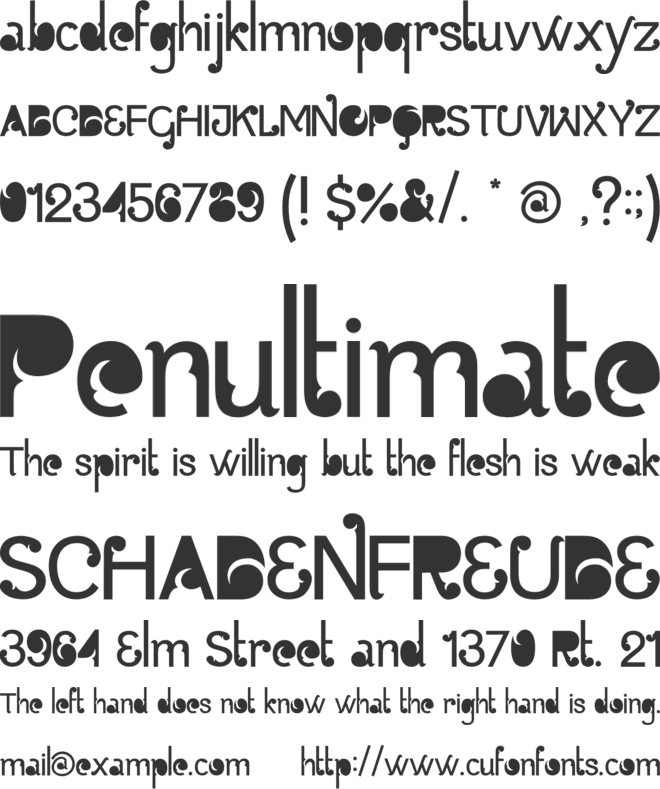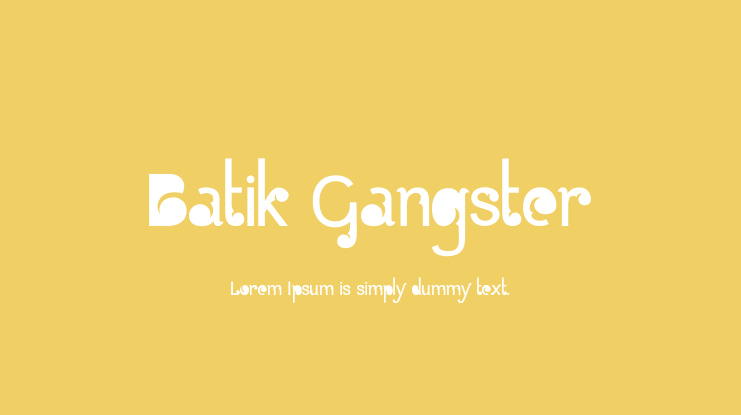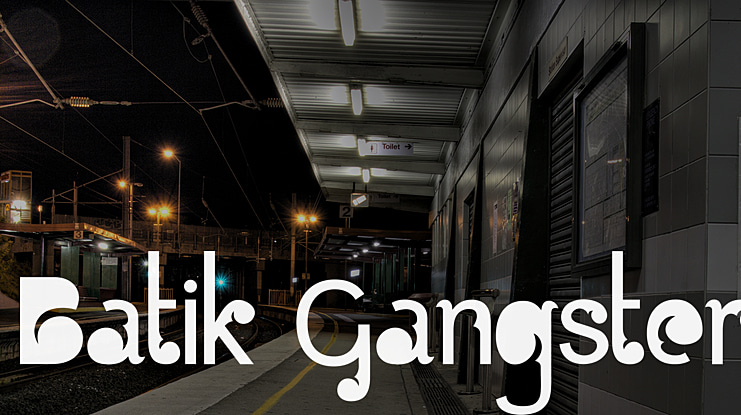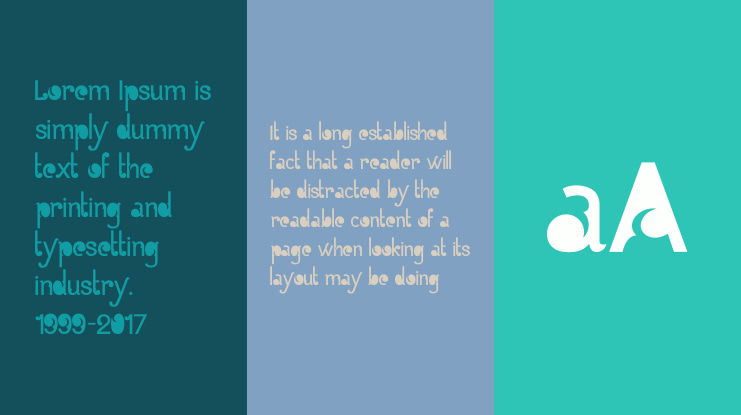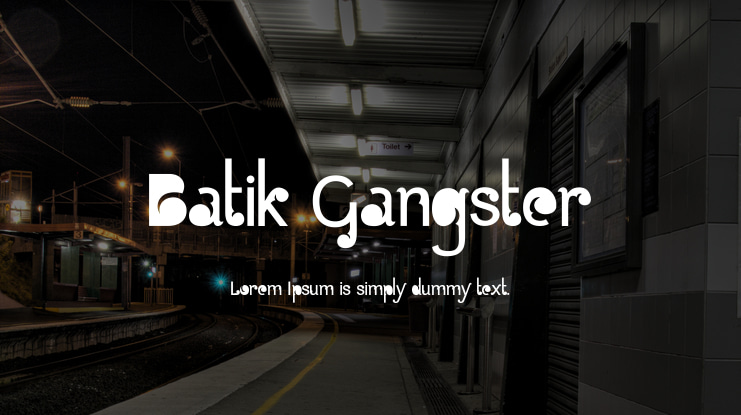
Batik Gangster Font
Andry Andriansyah
Batik Gangster. Really inspired by Batik it self, but word 'gangster' doesn't mean any thing. This font is sans serif font basically, but the decoration added in the every tip of the letters. Enjoy and download. Do commercial as you like (please contact me)